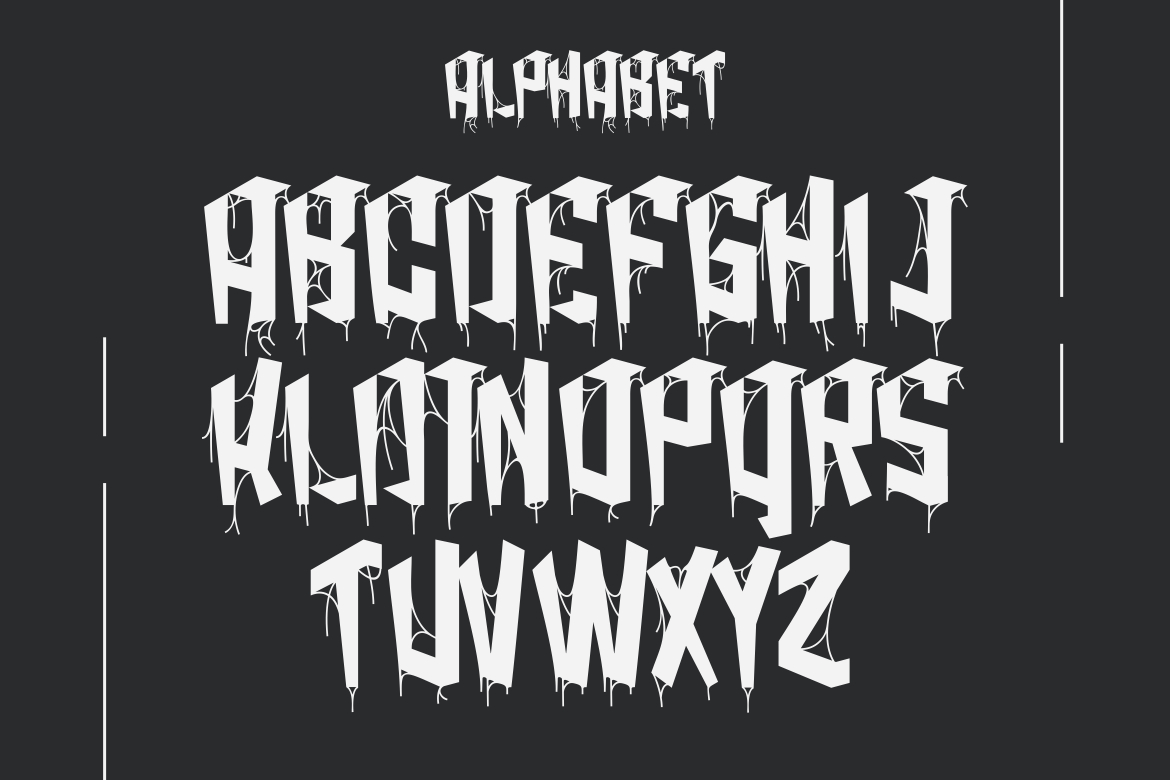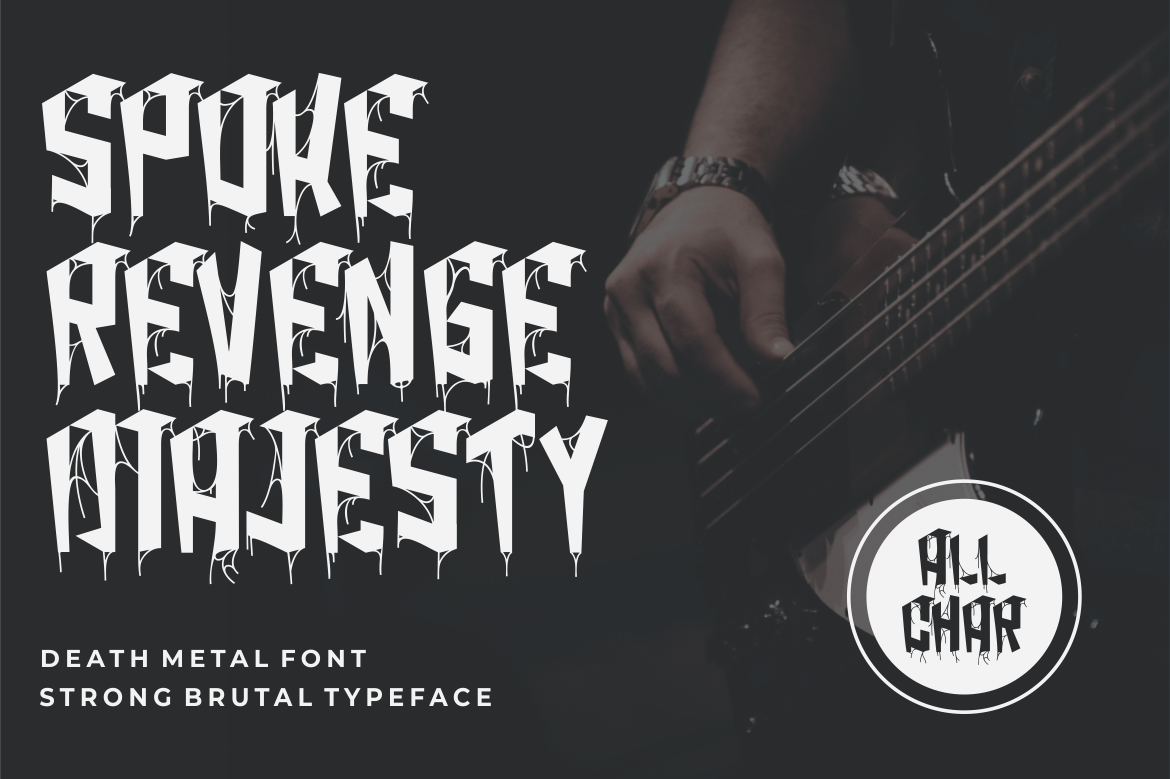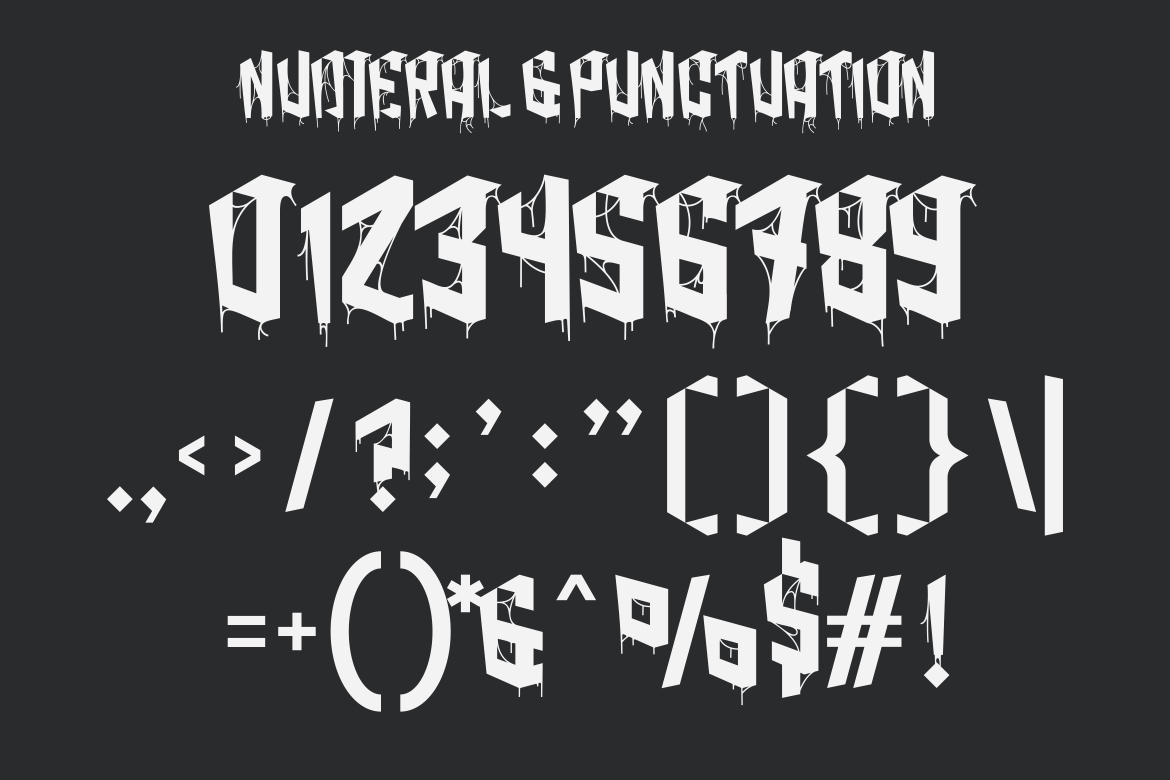
Acheron Font
**ACHERON FONT** Modern Blackletter Font
**WORLD HELL FONT** is a distinct, highly detailed, and Horror Metal font. It would make a great choice for exquisite retro-urban designs, tattoo business branding, logos, vintage designs, and more.